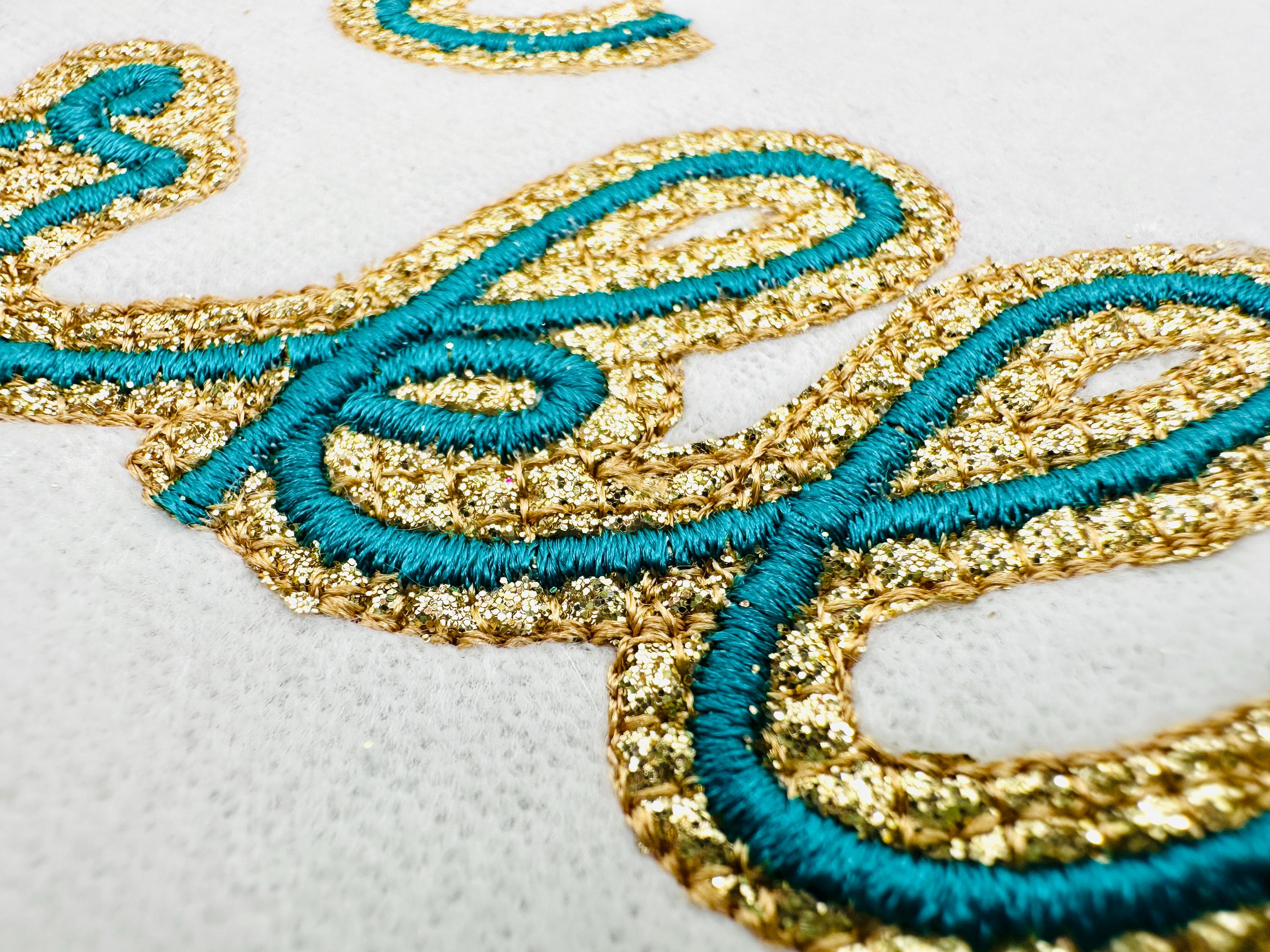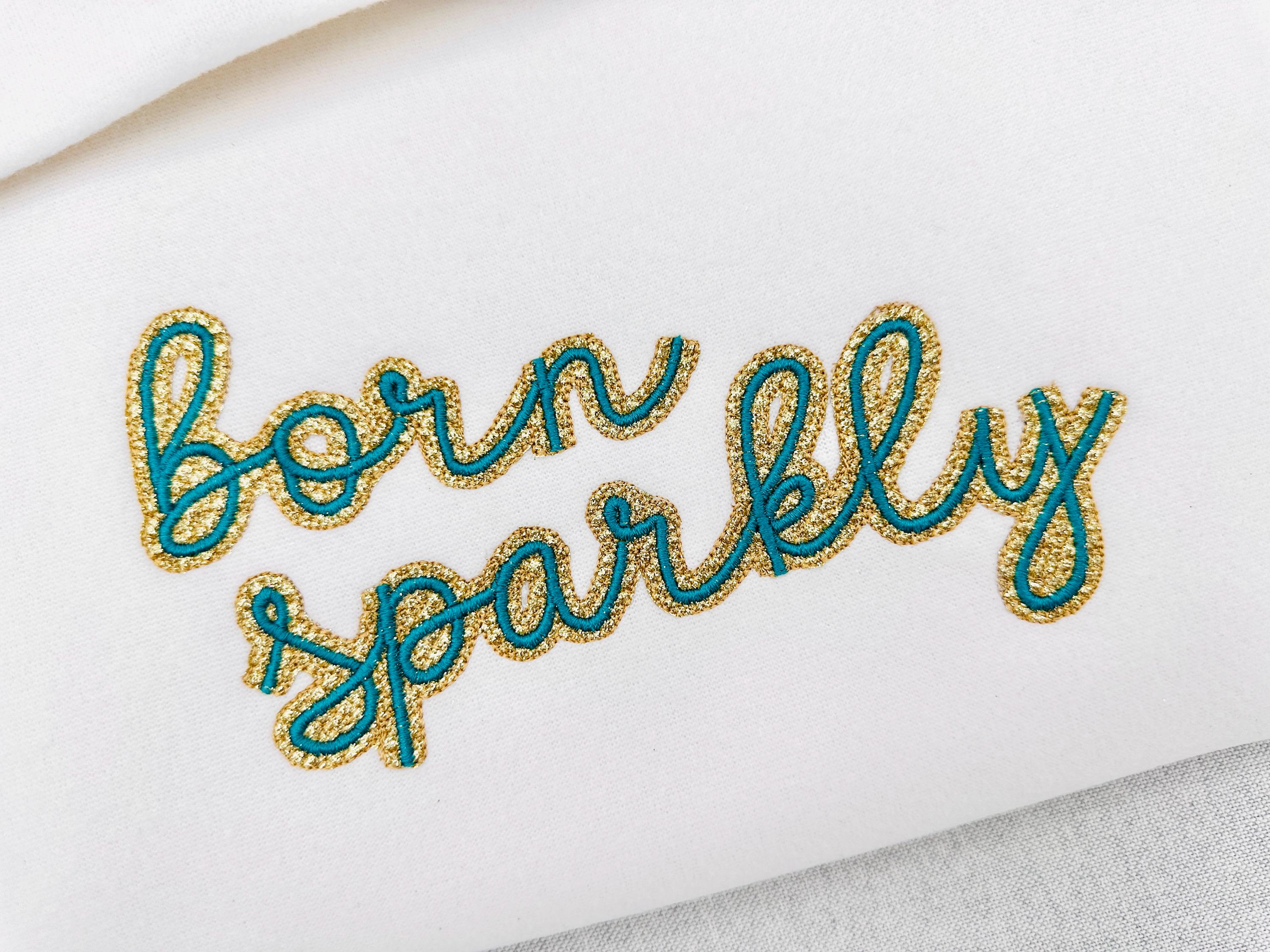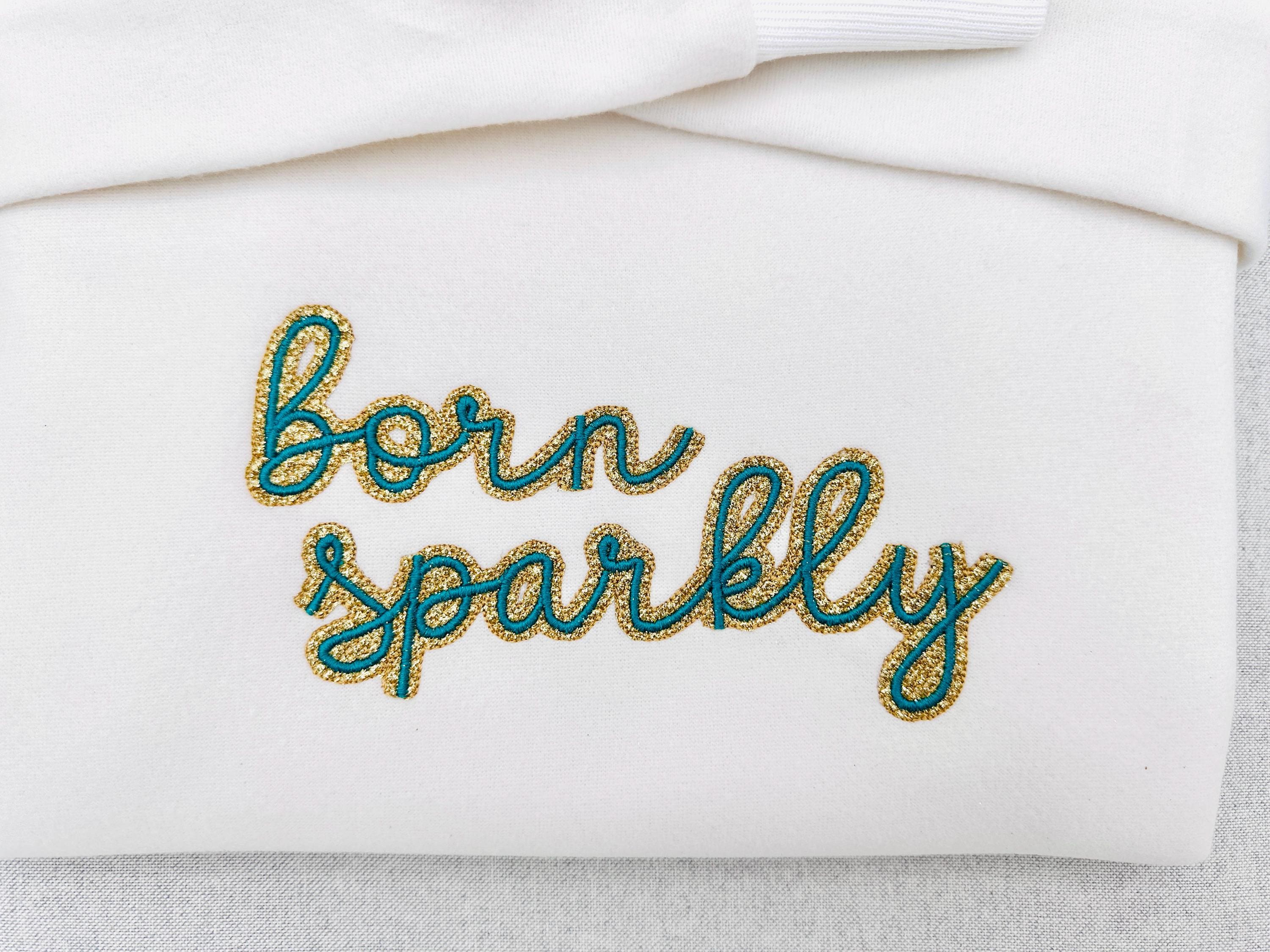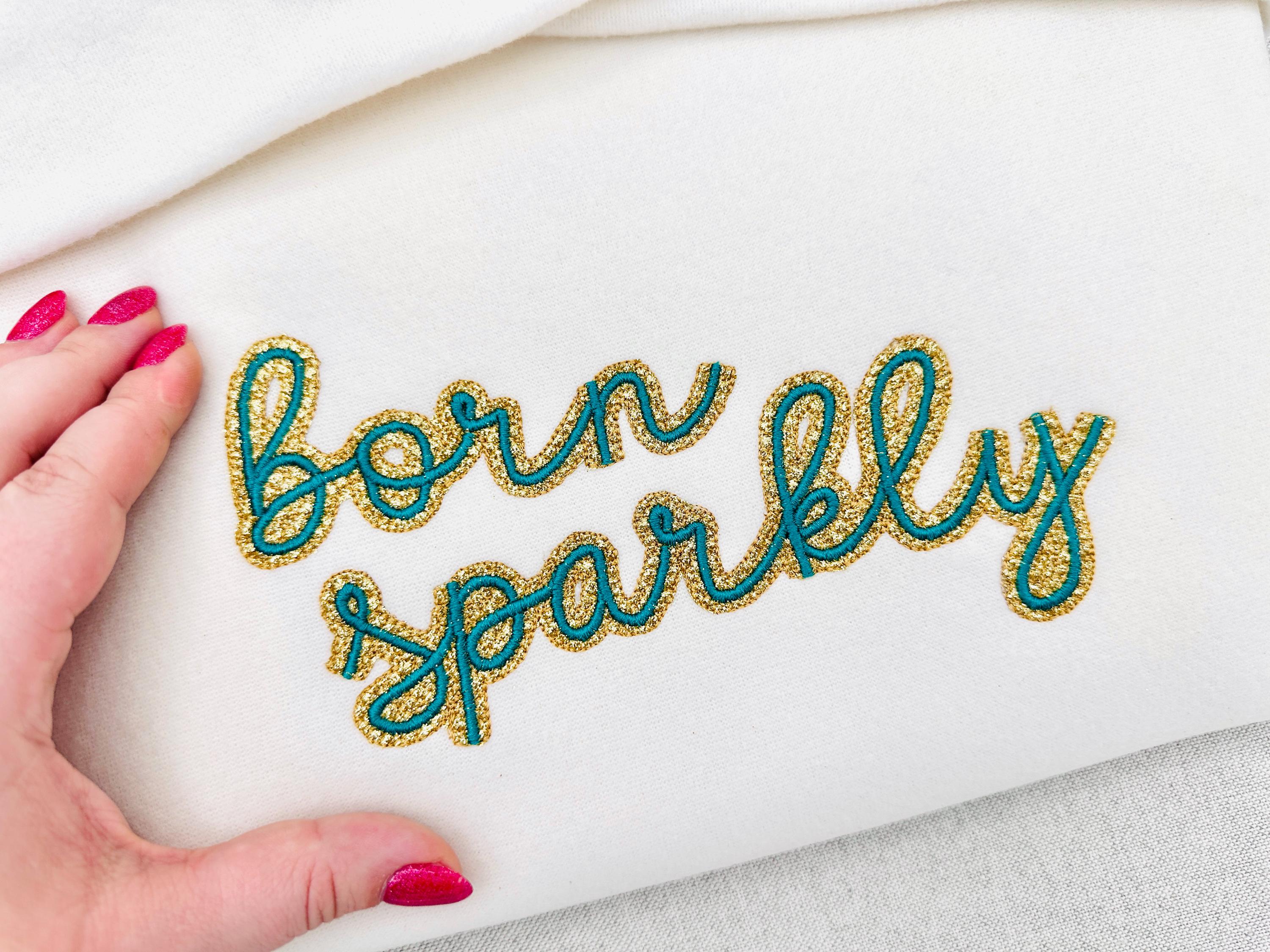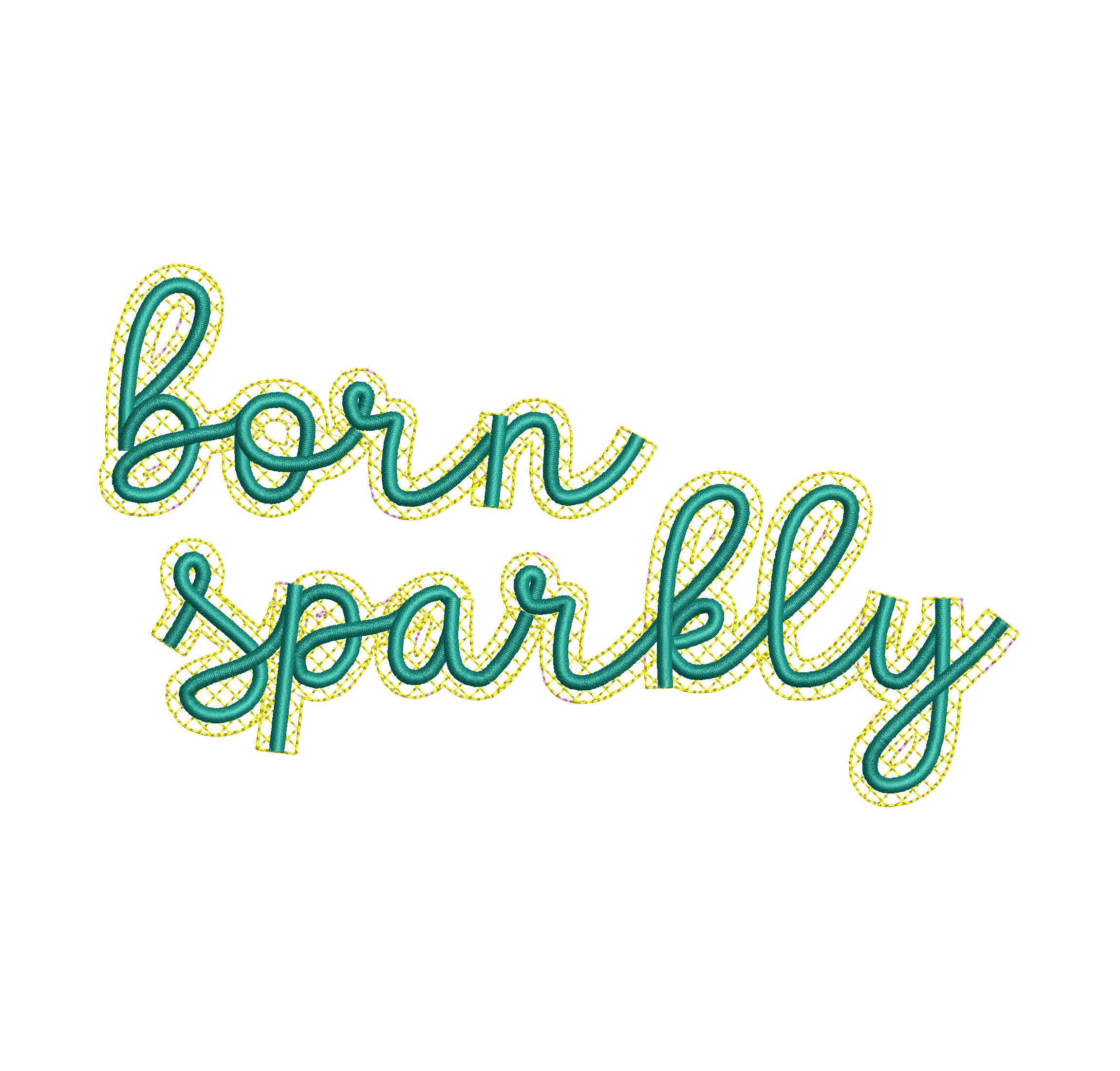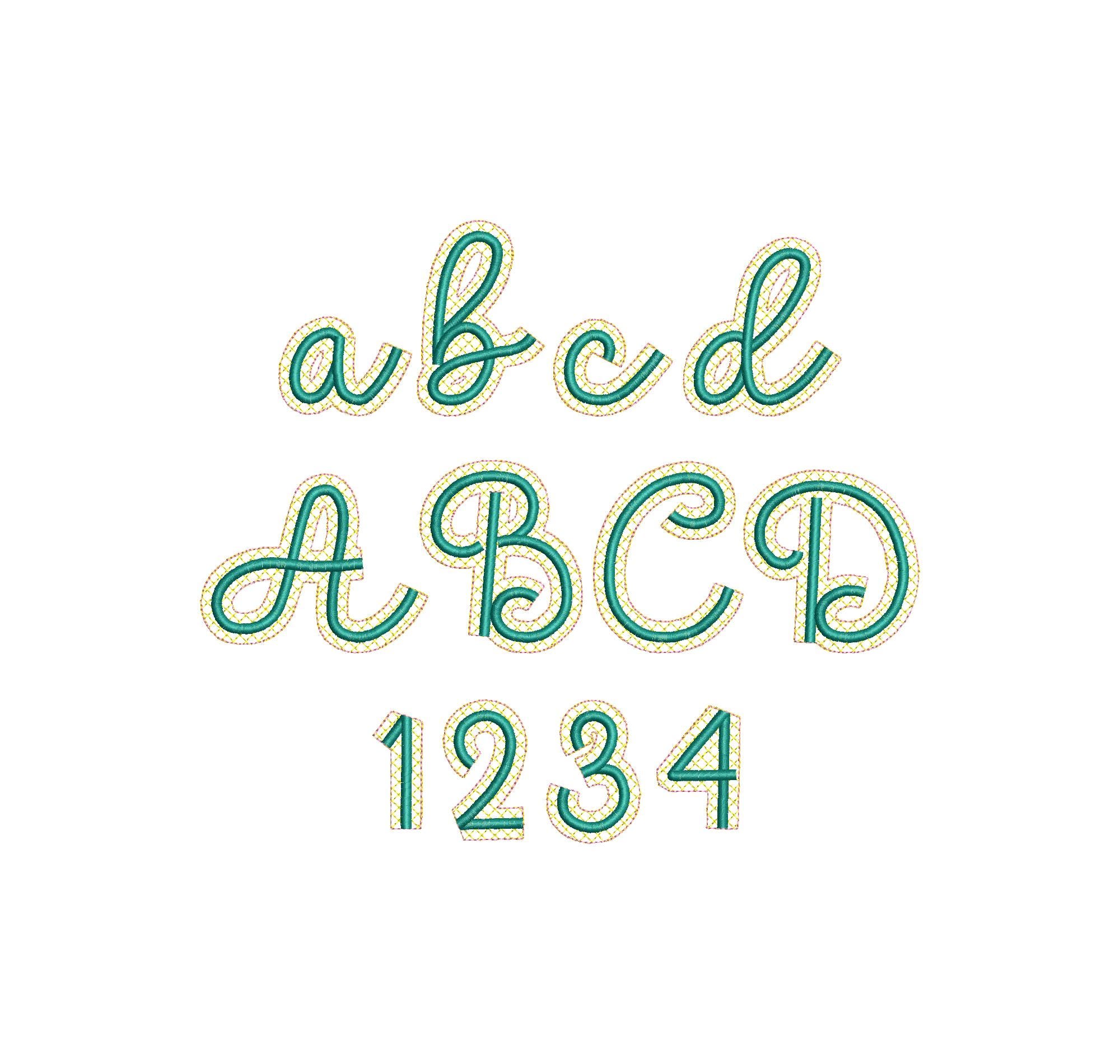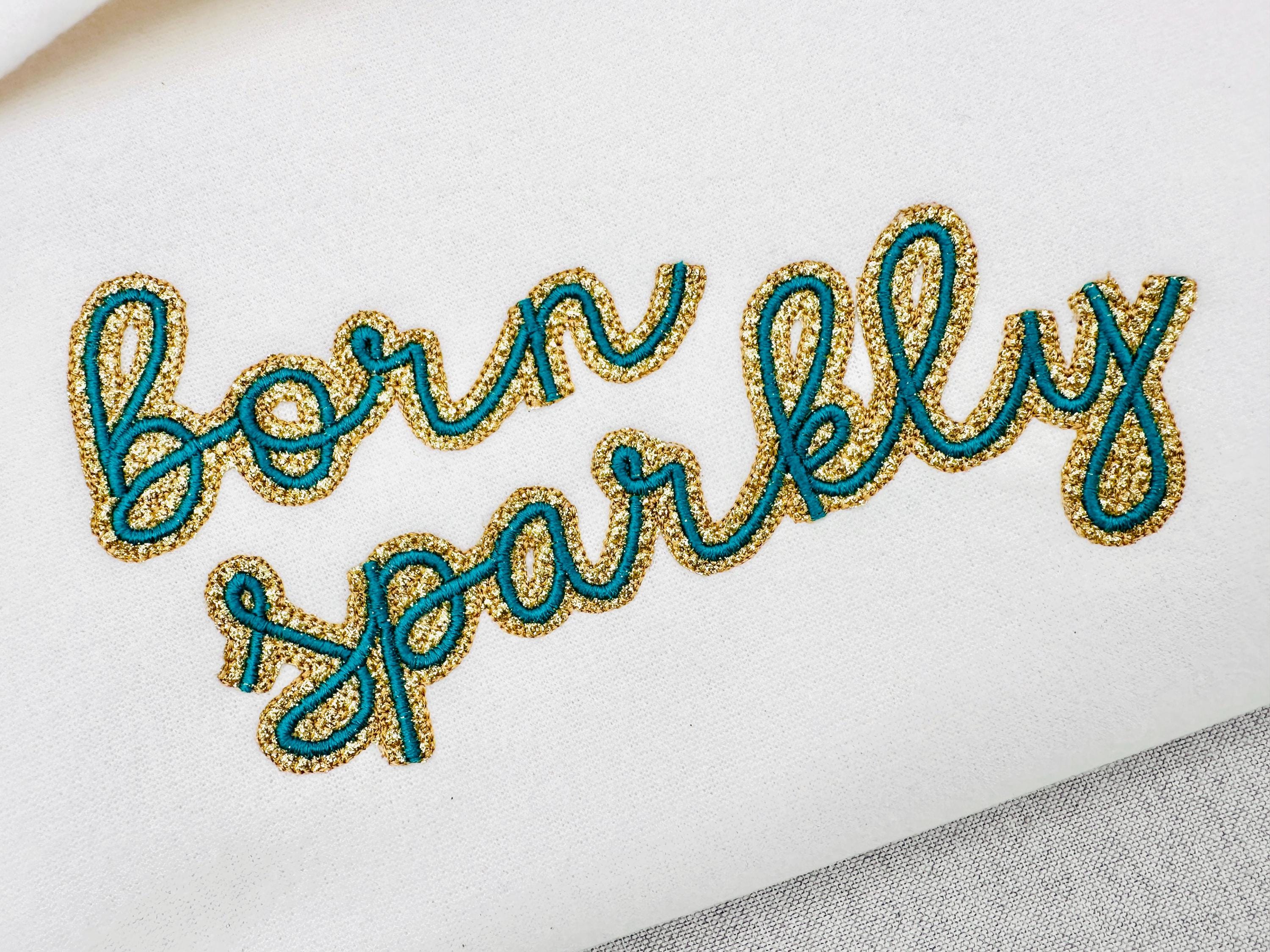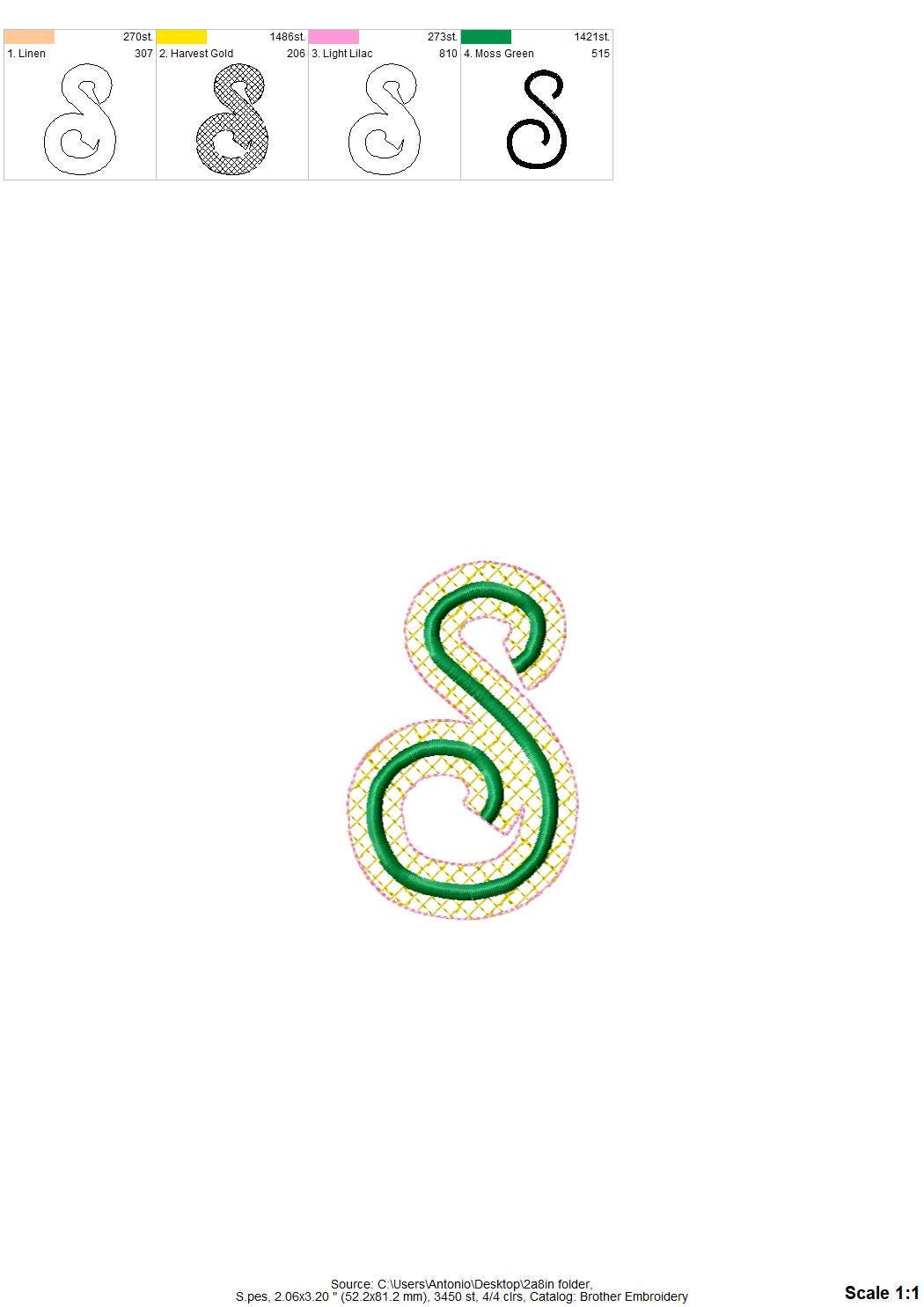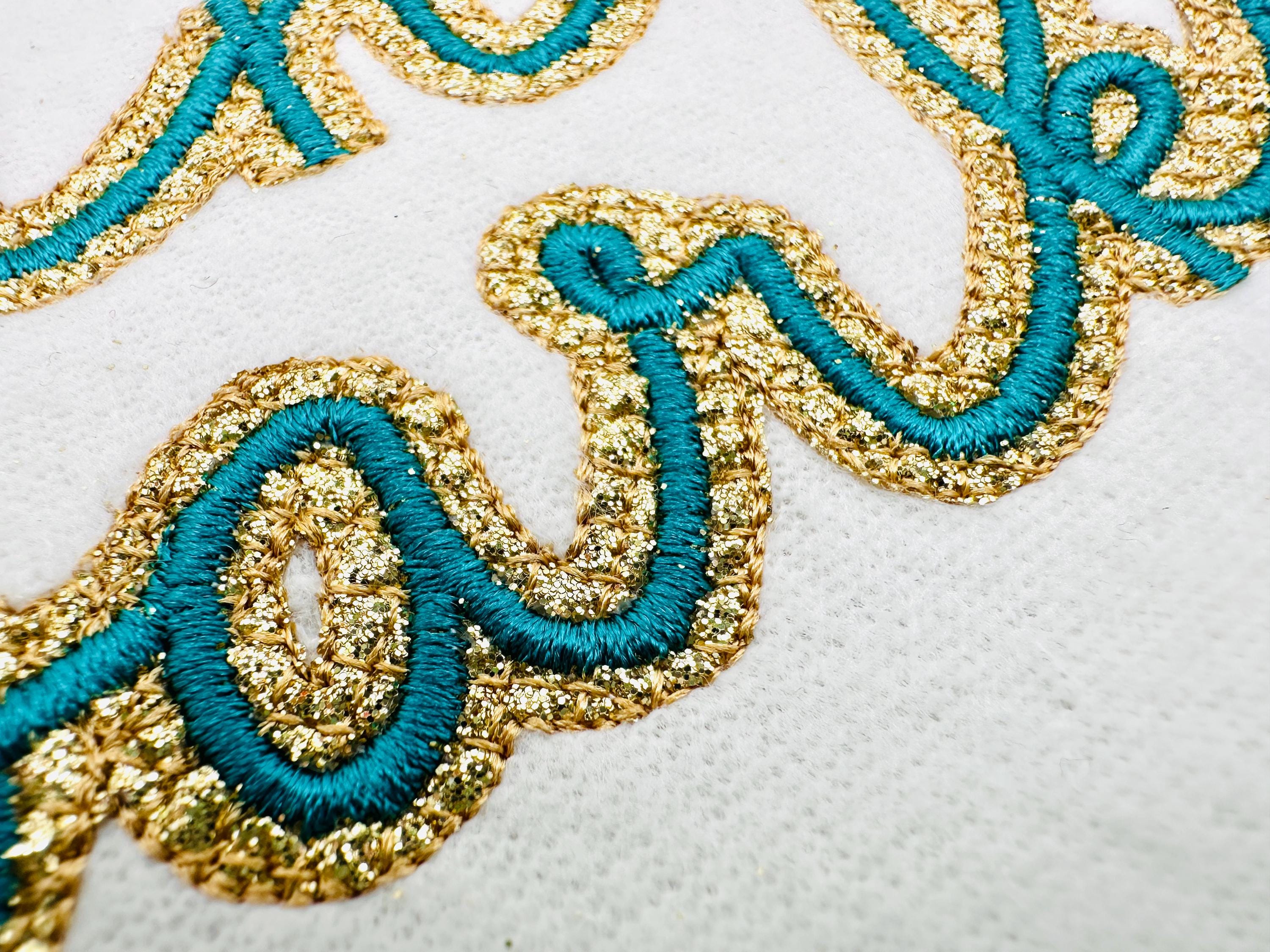
HTV vinyl satin stitch FONT glitter layer applique machine embroidery designs handwritten script Alphabet Monogram sizes 1.4 up to 4 inch
Whole alphabet uppercase and lowercase Aa-Zz, numbers 0-9, and punctuation.
NOTE: Due to the handwritten style and natural letter shapes, some outline lines may overlap when the letters are connected. This is not noticeable when using glitter HTV or glitter faux leather. For best results, choose a thread color that closely matches the glitter color. Please see the attached photo for reference.